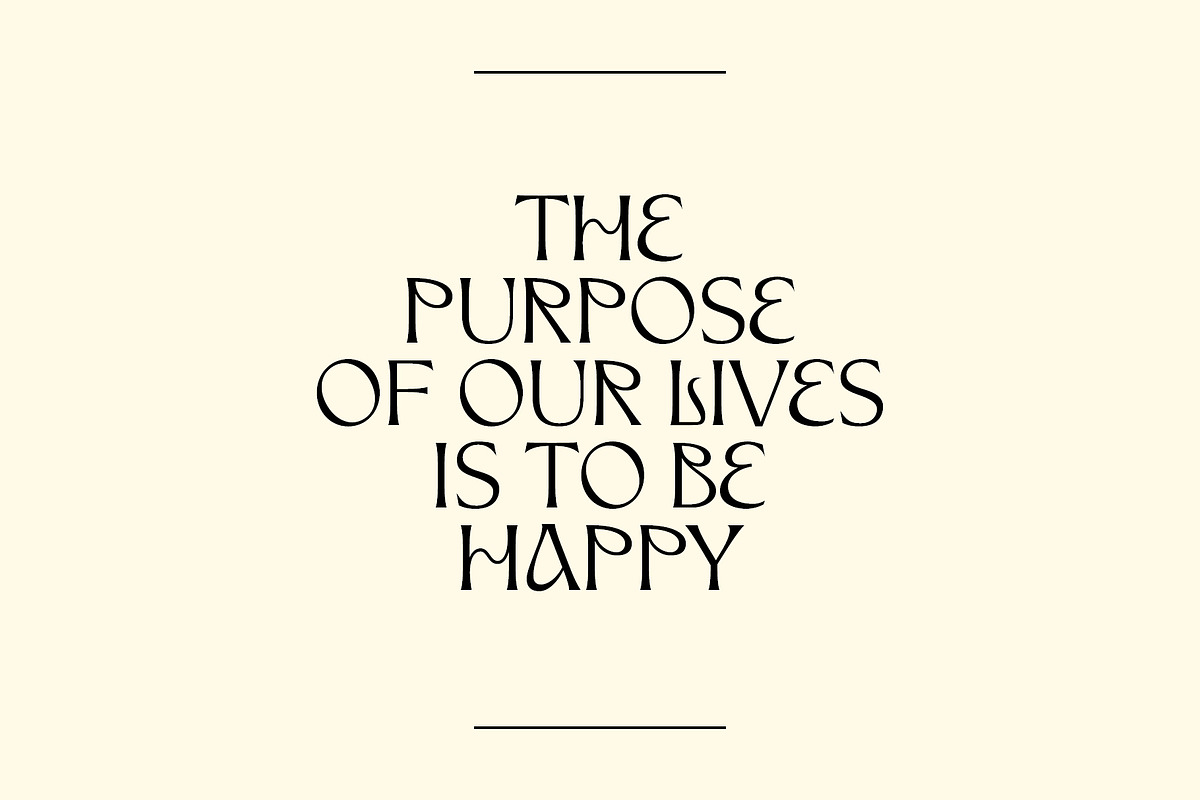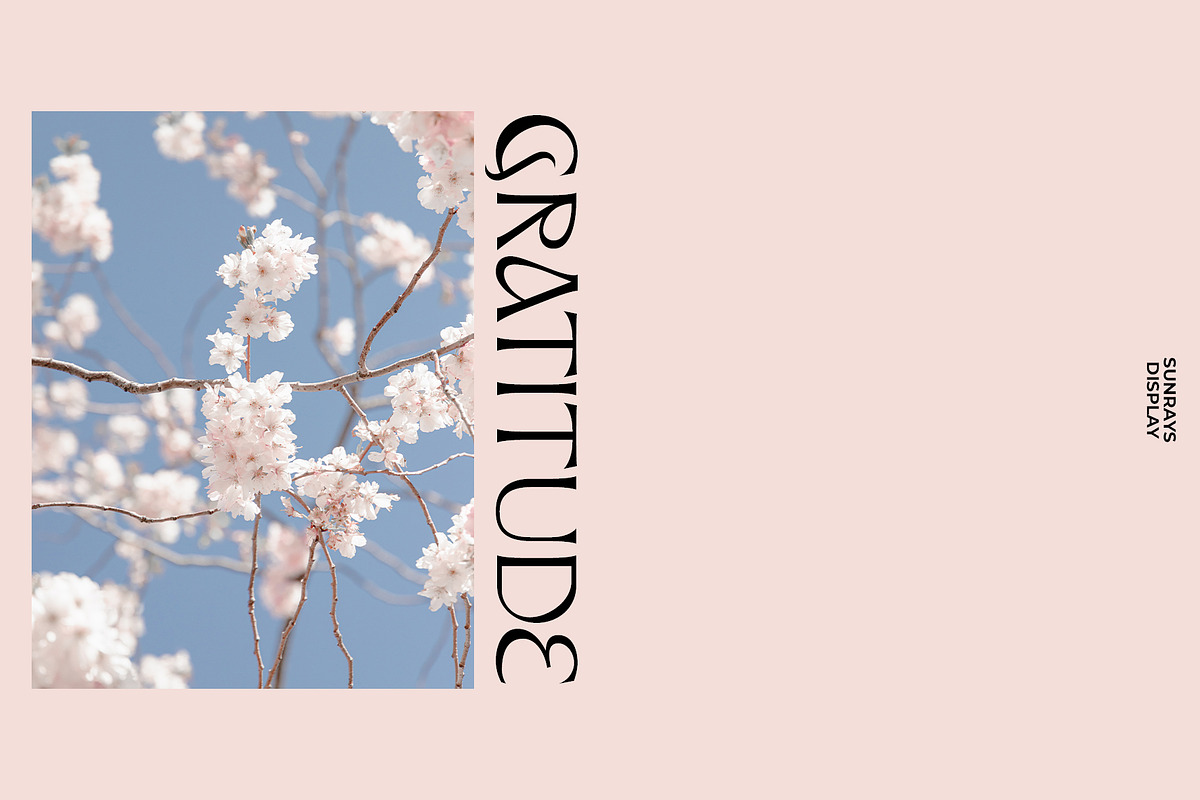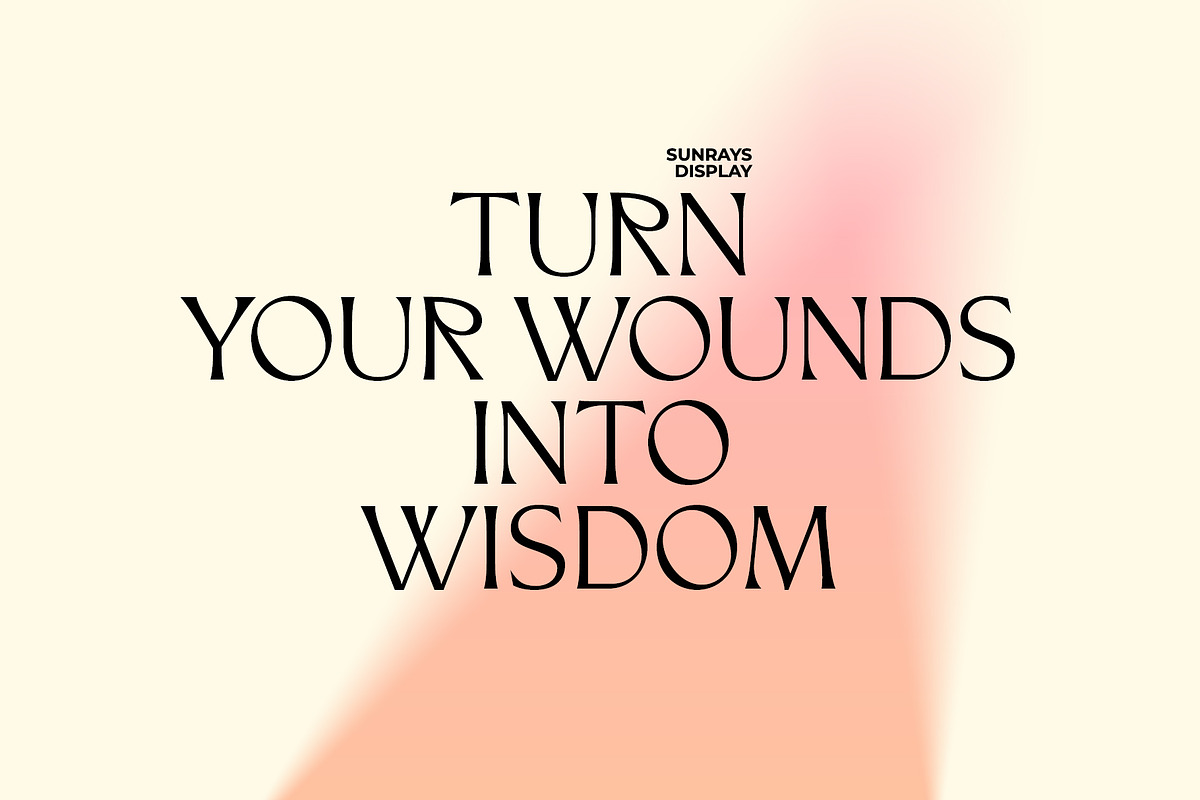
Sunrays Font
Sunrays is a modern and elegant display with incredible unusual lines that make it far from the typical classic serif.
The font is an open type with clean shapes and precise kerning. It includes ligatures encoded by the PUA. Language support: All European languages.